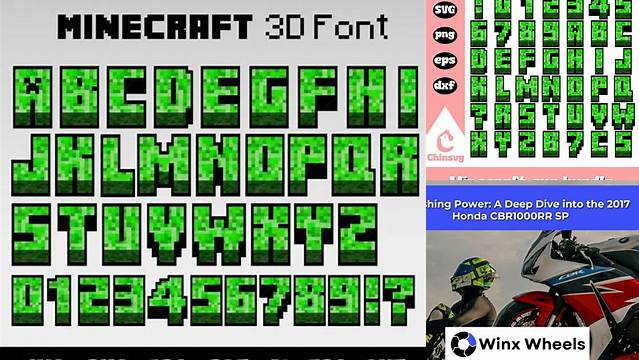
Creeper Font: Unleash Pixelated Power In Your Designs
Hey guys, ever stumbled upon that iconic, blocky font that instantly screams "Minecraft"? That, my friends, is the Creeper Font, and it's way more than just a typeface. It's a cultural touchstone, a symbol of gaming nostalgia, and a design element that can add a unique, pixelated punch to your projects. In this article, we're going to dive deep into the world of the Creeper Font, exploring its origins, its uses, and how you can wield its pixelated power to create some seriously cool stuff.
The Genesis of the Blocky Beast: Origin and Inspiration
Let's rewind a bit and uncover the roots of this beloved font. The Creeper Font, as we know it, isn't just some random collection of pixels. It's heavily inspired by the visual language of Minecraft, the massively popular sandbox game that took the world by storm. The game's aesthetic, characterized by its distinctive blocky textures and pixelated graphics, directly influenced the creation of the font. The fonts in the game, crafted to fit the style, have a common characteristic, and that's the blocky shape.
Think about it: everything in Minecraft is made of blocks. From the towering mountains to the sneaky creepers themselves, everything is built from these fundamental geometric shapes. The font, therefore, had to reflect this same visual philosophy. The Creeper Font captures this essence perfectly. Each letter, number, and symbol is meticulously crafted using a grid-based system, ensuring that every curve and edge is a perfect pixelated representation. The font's design isn't just about aesthetics; it's about capturing the feel of the game. It's about evoking that sense of adventure, creativity, and the sheer joy of exploring a vast, blocky world. The font's pixelated nature makes it instantly recognizable and gives it a unique charm that sets it apart from more traditional typefaces. This gives this font a unique selling point. It perfectly aligns with the game's visual identity. The creators of the font understood that it was a crucial part of the game's identity, and the design of the font directly influenced the final visual appearance.
So, the Creeper Font didn't just appear out of thin air; it was born from a deep understanding of the game's visual language and the desire to create a cohesive and immersive experience for players. It's a testament to the power of design and its ability to translate the essence of a game into a tangible and instantly recognizable element. The popularity of the font grew in parallel with the rise of Minecraft itself. The font was quickly adopted by fans, YouTubers, and content creators, who used it in their videos, thumbnails, and online branding. This widespread adoption further solidified the font's status as a symbol of the game. From its humble beginnings as a functional typeface for a game, the Creeper Font has evolved into a cultural icon. It is instantly recognizable and associated with creativity, adventure, and the enduring appeal of the Minecraft universe. This font continues to be a beloved and effective design choice for those looking to capture the essence of the game.
Where to Find the Pixelated Powerhouse: Availability and Usage
When you're actually using the font, keep in mind a few things to get the best results. First, this is a pixelated font. It's best suited for headlines, titles, and short blocks of text. It might not be the best choice for body text in large paragraphs, as its blocky nature can make it difficult to read for extended periods. Secondly, consider the size of the font. Since it's pixelated, the larger the font size, the more pronounced the pixel effect. Experiment with different sizes to find the sweet spot that fits your project's aesthetic. Also, because of its distinctive look, it's usually best to pair the Creeper Font with a more neutral or complementary font. For example, use it for headlines and pair it with a clean sans-serif font for the body text. This contrast can create a visually appealing and balanced design. Finally, think about the overall context of your project. Does the use of the Creeper Font align with your goals? If you're aiming to create a playful, gaming-related design, it's a perfect choice. However, if you're working on something more serious, you may want to consider a different typeface. The availability and ease of use make the Creeper Font a versatile tool for designers and creators of all levels. With a little experimentation and thoughtful application, you can harness its pixelated power to add a unique and captivating touch to your projects.
Crafting with Blocks: Creative Applications of the Creeper Font
Now that you know where to find and how to use the Creeper Font, let's get creative! The applications of this pixelated powerhouse are surprisingly diverse. The most obvious application is in gaming-related projects. If you're a streamer, a YouTuber, or simply a huge Minecraft fan, the Creeper Font can be used to create eye-catching thumbnails, channel art, and intro videos. Use it for your channel name, video titles, and call-to-action text to instantly communicate your gaming affiliation. Even create custom merchandise such as t-shirts, posters, or stickers featuring your favorite Minecraft characters or quotes, all in the distinctive Creeper Font.
Beyond the gaming world, the Creeper Font can also be a fun and effective choice for other creative projects. It's perfect for creating retro-themed designs, pixel art-inspired graphics, and designs that evoke a sense of nostalgia. The blocky aesthetic works particularly well for projects that celebrate the 8-bit or 16-bit era of video games. Think about designing posters, flyers, or social media graphics for themed parties, game nights, or retro gaming events. Also, it's a great option for creating educational materials, especially for children. Use it for designing fun and engaging worksheets, posters, or learning resources. The font's familiarity and playful nature can make learning more enjoyable for younger audiences. Use it in presentations, slideshows, and other visual aids to add a touch of creativity and memorability.
The Creeper Font can also be a great way to add a personal touch to gifts, cards, and other DIY projects. Create custom birthday cards, invitations, or thank-you notes with a personalized message in the Creeper Font. Use it for creating personalized artwork for your home or office. Print out motivational quotes, favorite sayings, or even the names of loved ones, all in the distinctive pixelated style. Experiment with different colors, backgrounds, and layouts to create truly unique and personalized pieces. You can try to get creative and apply the font to web design or branding. Use it for website headings, logo design, or even for creating a unique brand identity for a gaming-related business or project. Just make sure that your design decisions align with the overall aesthetic of your brand. Ultimately, the creative possibilities are endless. The key is to embrace the font's unique pixelated aesthetic and let your imagination run wild. The Creeper Font is more than just a font; it's a tool that lets you inject creativity and fun into almost any project.
Conclusion: Embracing the Blocky Legacy of the Creeper Font
So, there you have it, guys! A comprehensive guide to the Creeper Font. From its origins in the blocky world of Minecraft to its diverse applications in design, this font is a testament to the power of creativity, nostalgia, and the enduring appeal of pixel art. Whether you're a seasoned designer, a budding content creator, or simply a Minecraft enthusiast, the Creeper Font is a valuable tool to add a unique and captivating touch to your projects. The next time you're looking for a font that's both playful and distinctive, look no further than the pixelated powerhouse that is the Creeper Font. Go forth, create, and embrace the blocky legacy! Happy designing!